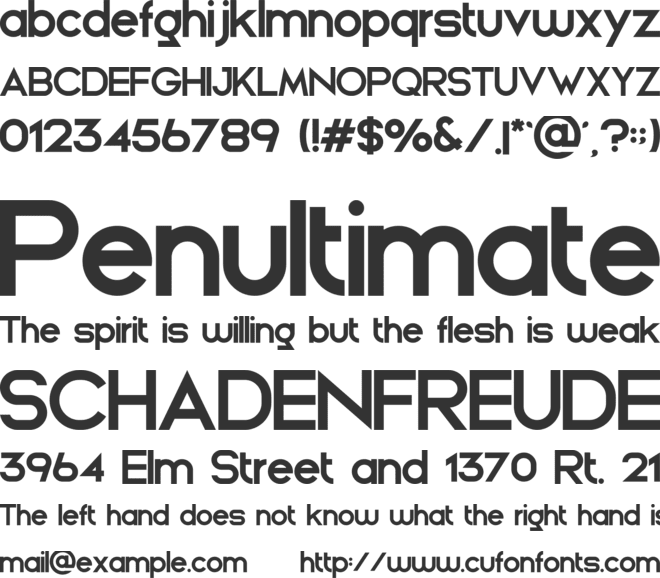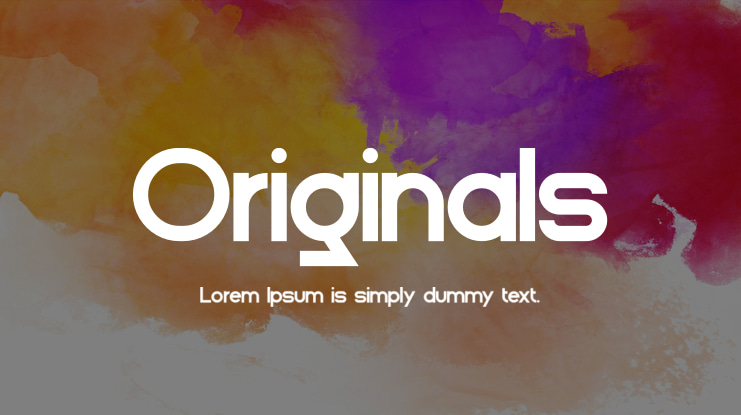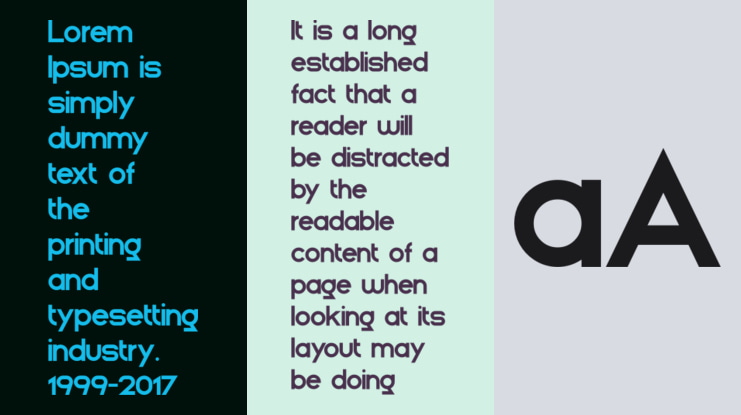
Originals Font
This is a geometric sans serif typeface crafted & designed by Kijiji Hub. Originals typeface contains 235 glyphs. This font is good for logo design, Social media, Movie Titles, Books Titles, a short text even a long text letter and good for your secondary text font with sans or serif. Make a stunning work with Originals font.